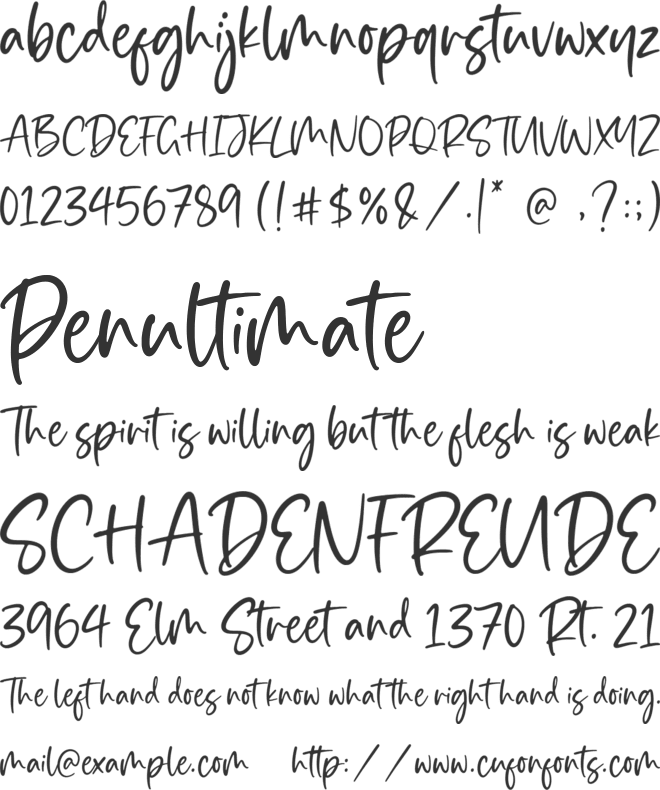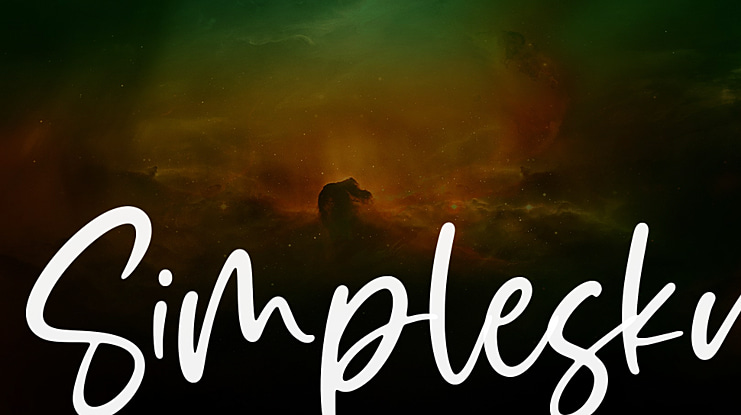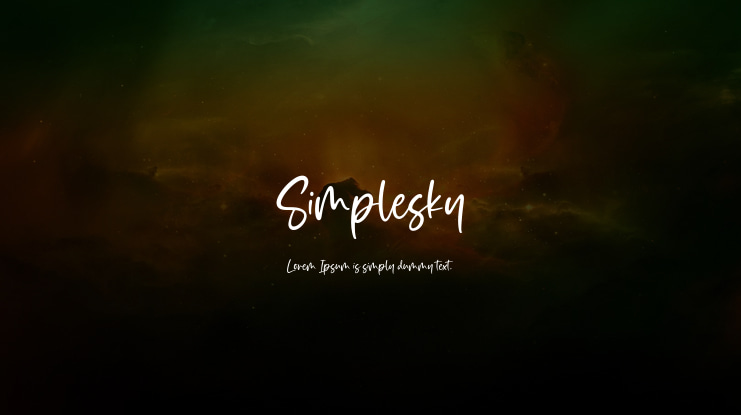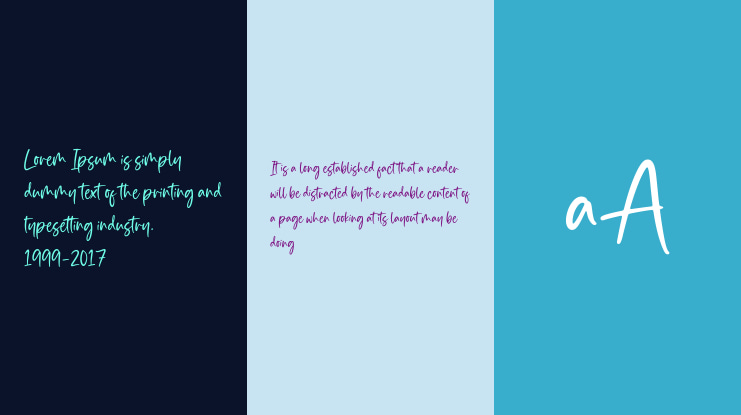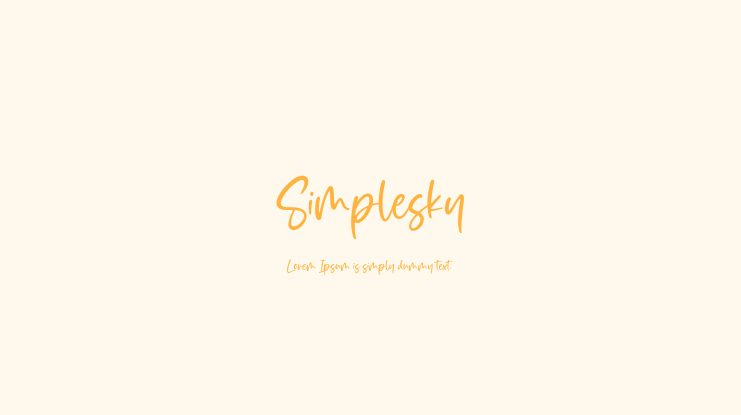
Simplesky is a sweet and delicate handwritten font. Dainty and joyful, this font will be ideal for writing wedding invitations, cards or any other design that may need a romantic, personalized touch!
Simplesky is perfect for product packaging, branding project, megazine, social media, wedding, or just used to express words above the background.